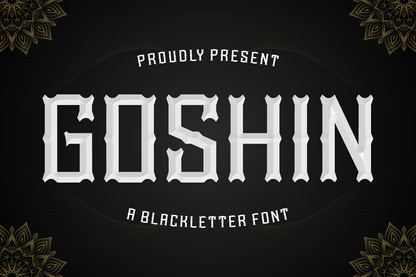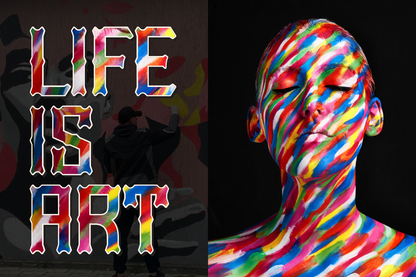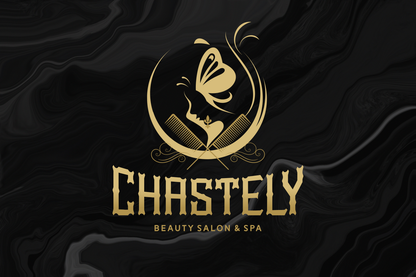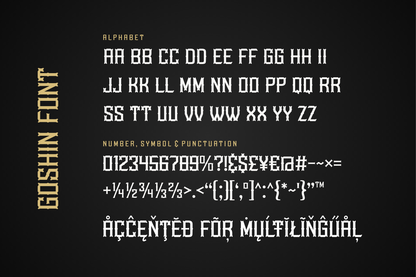
Goshin is a sharp and powerful modern blackletter font with a digital twist. Its rigid structure and blade-like edges give it a futuristic medieval vibe—perfect for esports branding, cyberpunk aesthetics, or gaming titles that demand authority and edge.